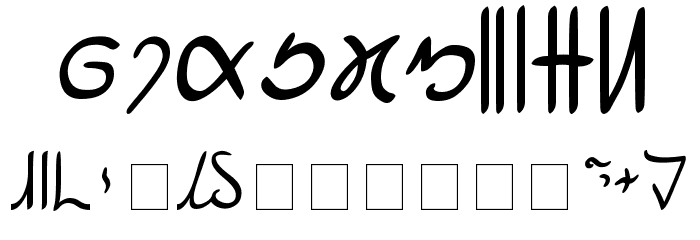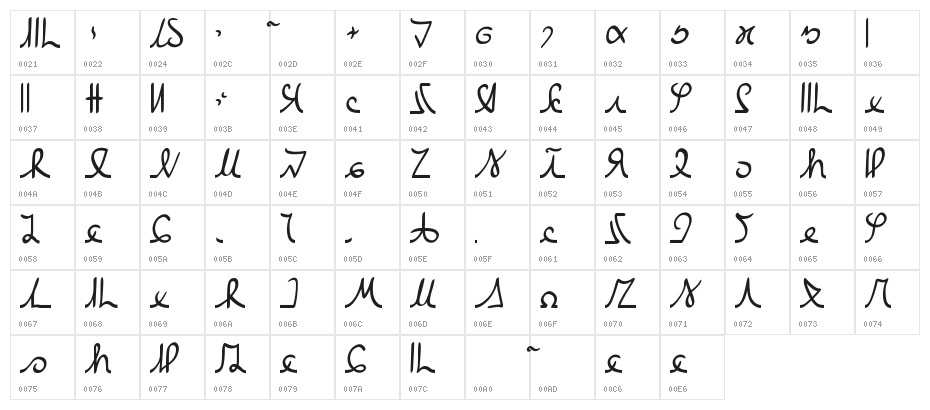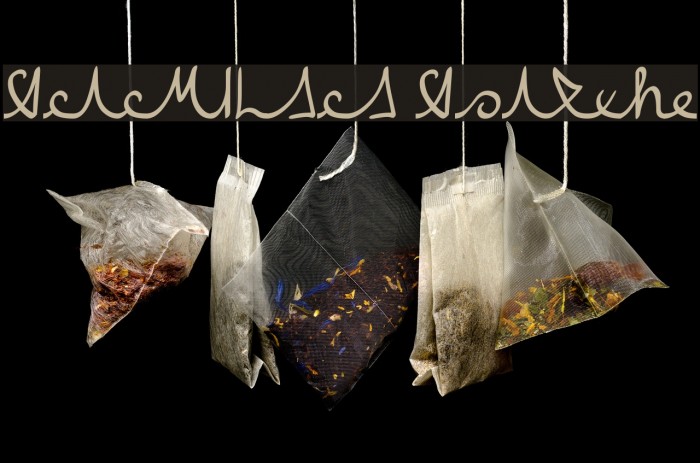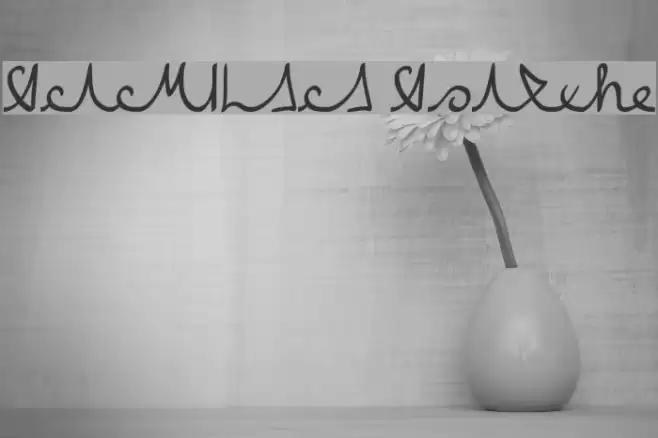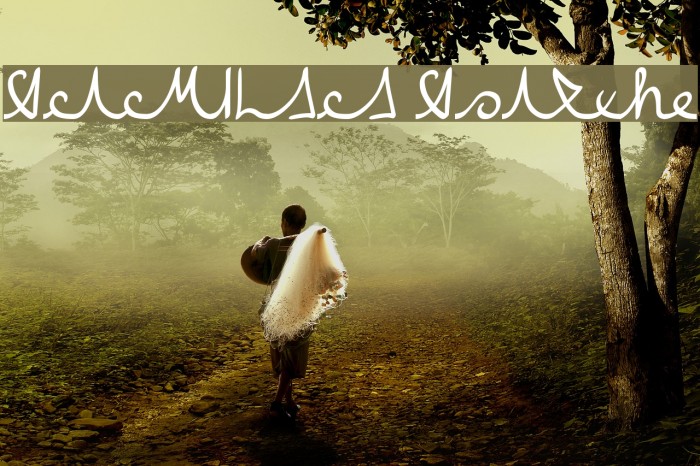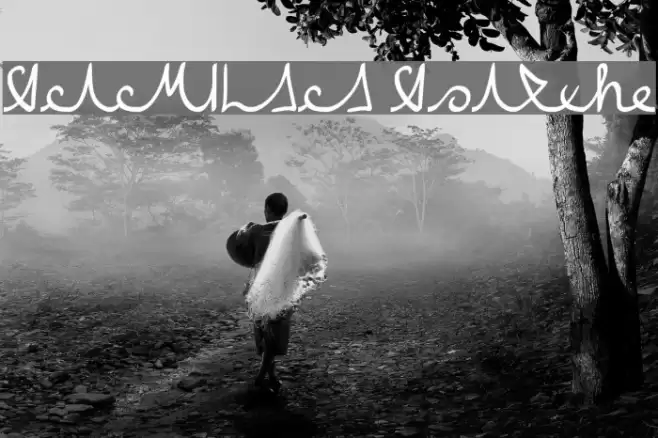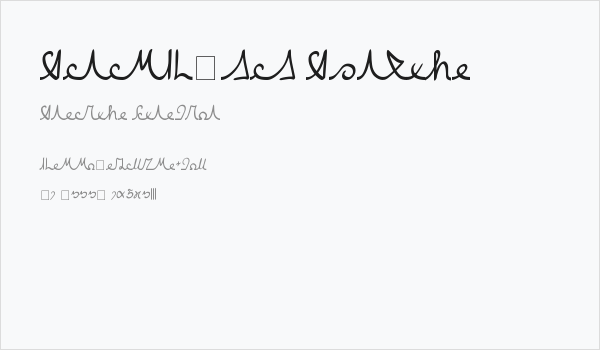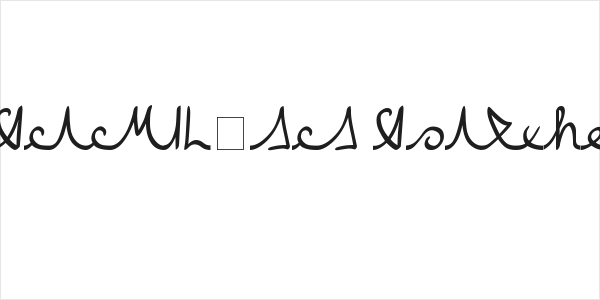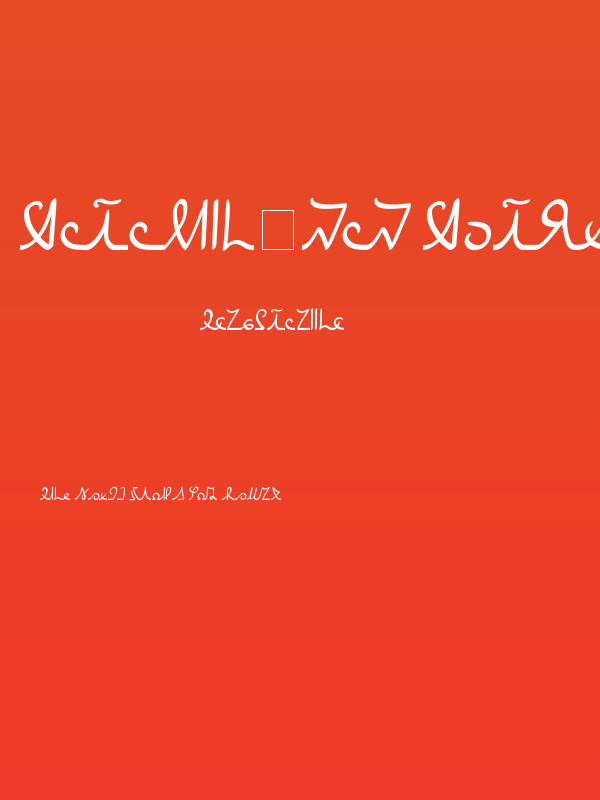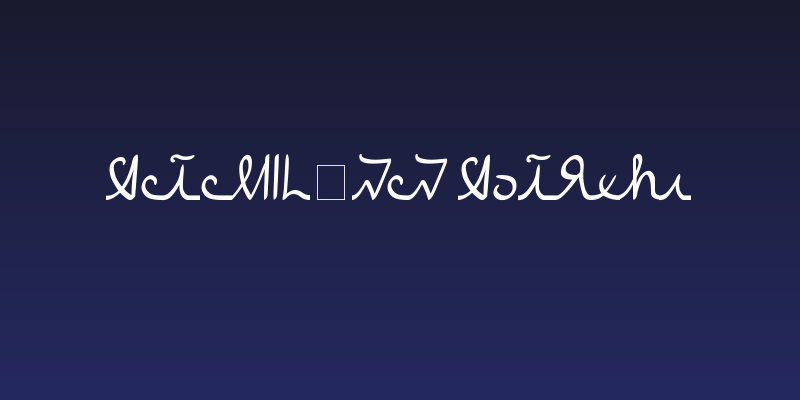
Caralhûnan Cursive Font
Caralhûnan Cursive Description
This font features a unique and flowing cursive style, characterized by its elegant and continuous strokes that create a sense of movement and fluidity. The letters are interconnected, with each character seamlessly transitioning into the next, giving it a handwritten appearance. The uppercase letters are bold and prominent, while the lowercase letters maintain a consistent flow, enhancing readability. The numbers and special characters are designed to match the overall cursive theme, adding a cohesive look to the entire set. This font is ideal for projects that require a personal and artistic touch, such as invitations, greeting cards, and decorative headings.
| Use Case | Headlines, Artistic projects |
| Proposed Projects | Ideal for invitations, greeting cards, decorative headings, and artistic projects. |